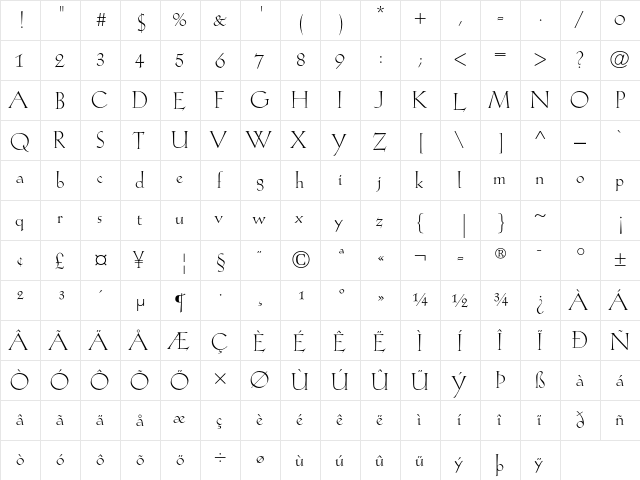
Koch Antiqua LT Std Regular
| Designer | Rudolf Koch |
Design Context for Koch Antiqua LT Std Typeface
Koch Antiqua LT Std offers clean, dependable letterforms without strong stylistic allegiance, making it a practical choice for designers who need flexibility. The delicate stroke weight brings airiness and refinement to layouts.